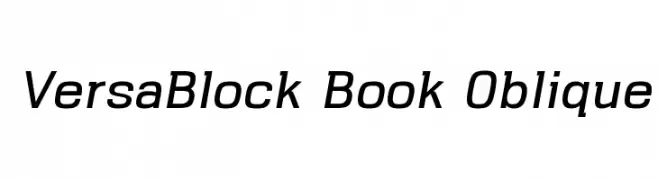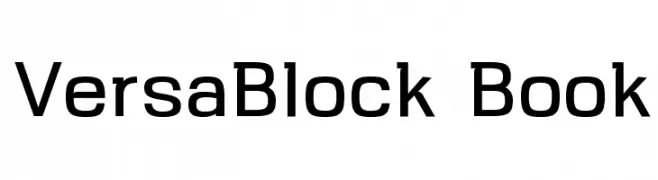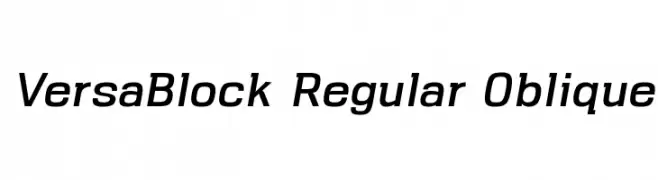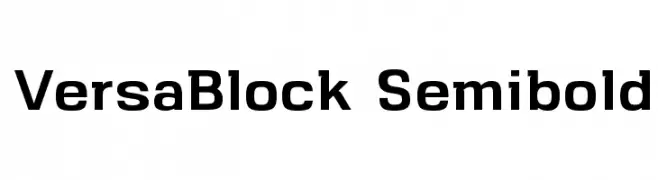
A modern, light sans-serif font with clean lines and excellent readability.
A modern, light, italic sans-serif font with sleek and fluid character design.
A clean, modern sans-serif font with medium weight and excellent legibility.
A modern, italicized sans-serif font with clean lines and balanced proportions.
A clean, modern sans-serif font with a semi-bold weight and balanced design.
A modern, semi-bold italic sans-serif font with medium contrast and normal spacing.
A geometric and elegant font with sharp angles and subtle serifs.
A bold, classic serif font with strong serifs and balanced proportions.
A bold, italic serif font with elegant, flowing lines and a classic style.
An elegant serif typeface with a classic italic style and moderate contrast.
A classic serif font with elegant strokes and refined proportions.
A bold, classic serif font with moderate contrast and pronounced serifs.
A classic serif font with elegant italic styling and moderate contrast.
An elegant serif font with a classic italic style and refined serifs.
A classic serif font with elegant strokes and timeless appeal.
A bold, classic serif font with moderate contrast and elegant serifs.
A bold, italic serif font with elegant curves and a classic style.
An elegant italic typeface with smooth curves and a refined, classic appearance.
A classic serif font with elegant strokes and refined design.
A bold, angular font with a futuristic and edgy design.
A modern, geometric font with a futuristic and digital aesthetic.
A bold, geometric font with a checkered pattern and sharp angles.
A bold, geometric font with a futuristic and industrial design.
A bold, italicized font with geometric shapes and a modern, futuristic style.
A bold, geometric font with a futuristic and industrial design.
A bold, geometric font with a distinctive shadow effect, perfect for striking headlines.
A bold, italic typeface with a modern, dynamic design featuring checkered textures.
( Fonts by Edric Studio www.creativefabrica.com/designer/edricstudio/ - Personal-use only. For commercial use please contact owner. )
A bold, italicized geometric font with halftone texture and a modern, dynamic style.
A bold, geometric font with a dynamic shadow effect for a modern look.
A bold, cursive script font with dynamic, sweeping strokes and elegant flourishes.